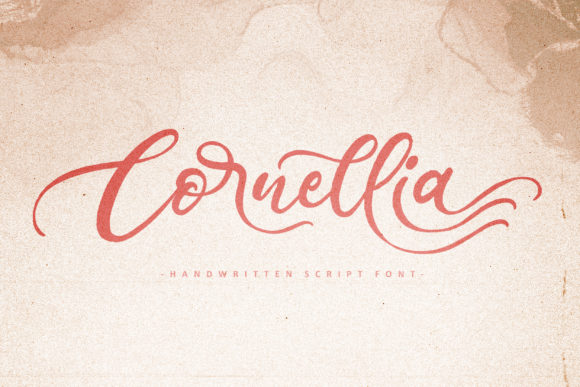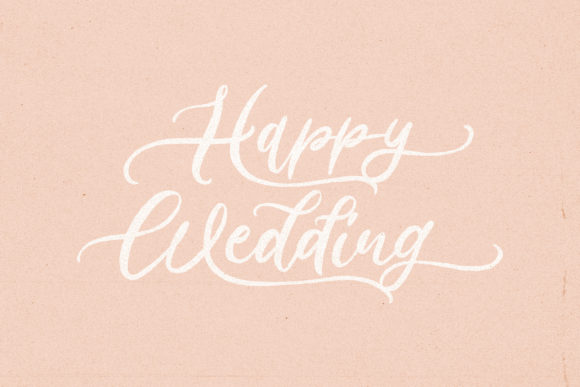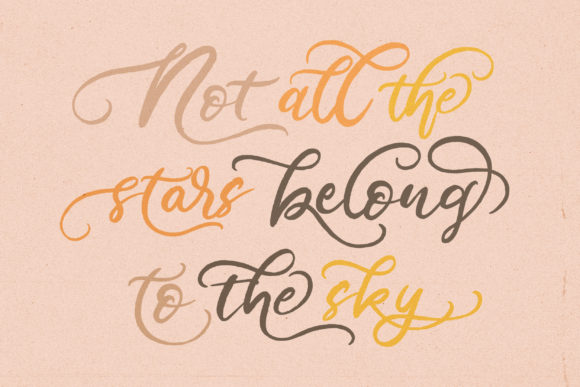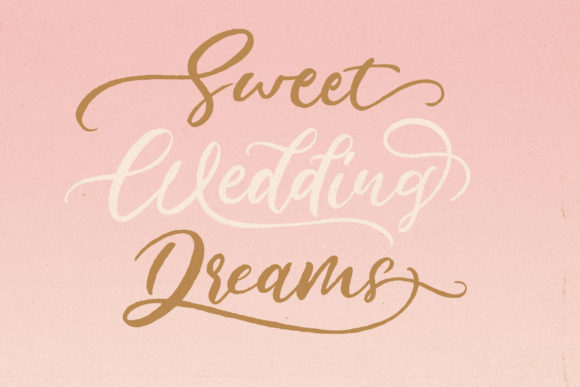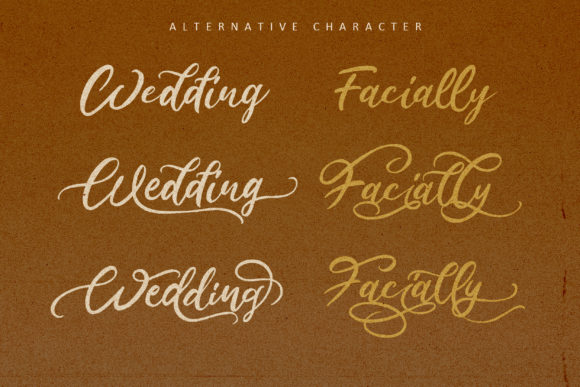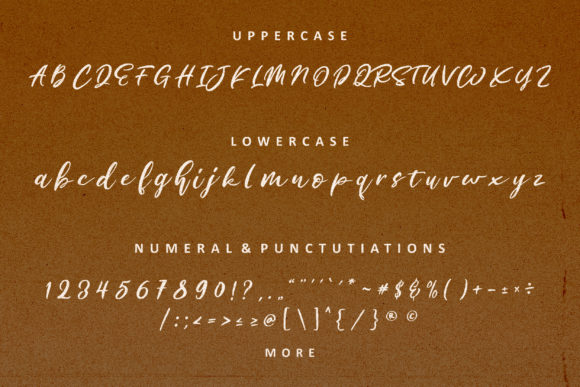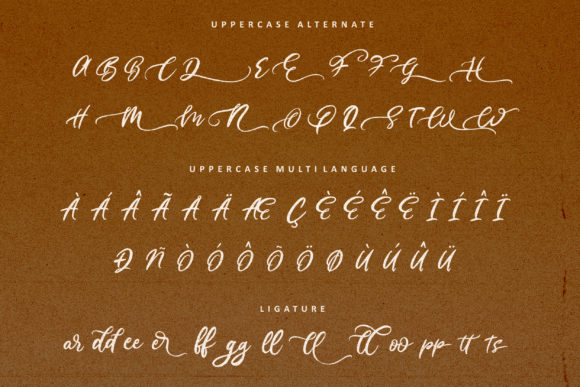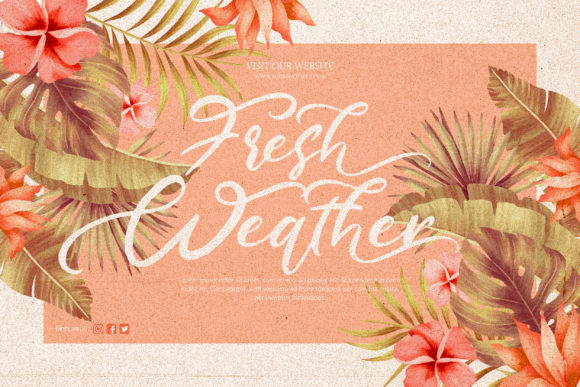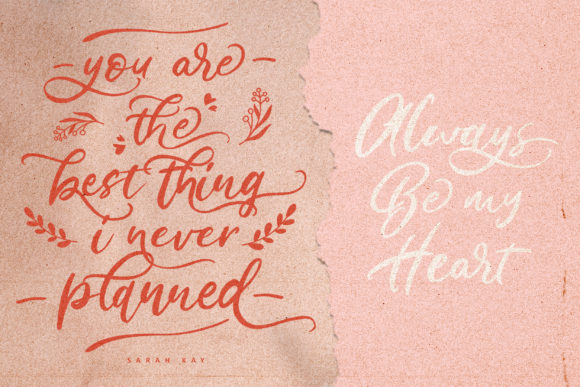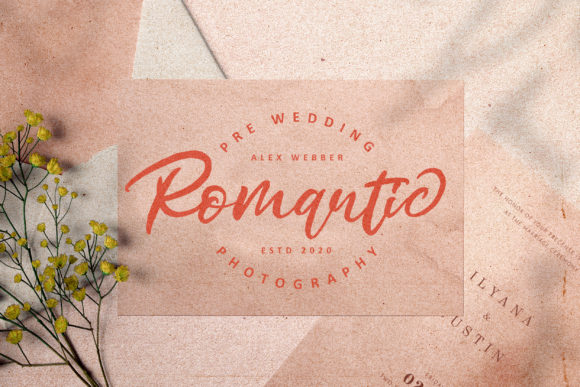
Cornellia Font
About Cornellia Font
Cornellia is a cute and casual handwritten font with an incredibly friendly feel. It features gorgeous swashes and ligatures that make this script incredibly versatile.
This font is PUA encoded which means you can access all of the amazing glyphs and swashes with ease! It also features a wealth of special features including alternate glyphs and ligatures.